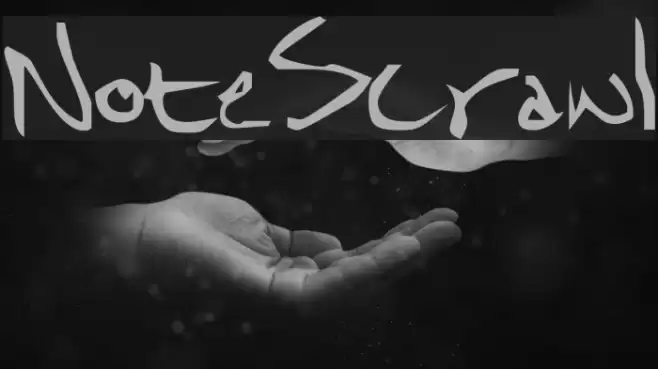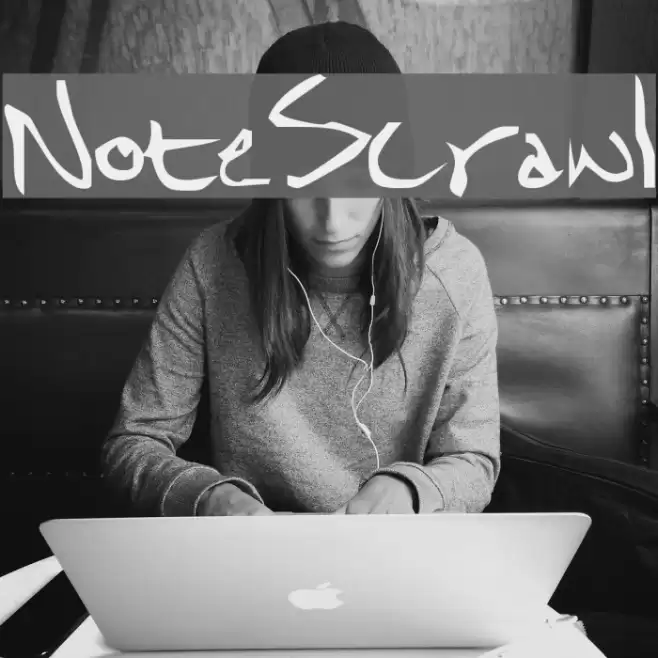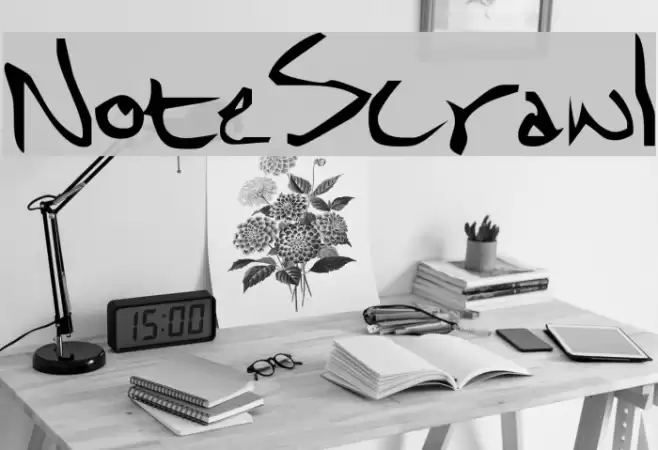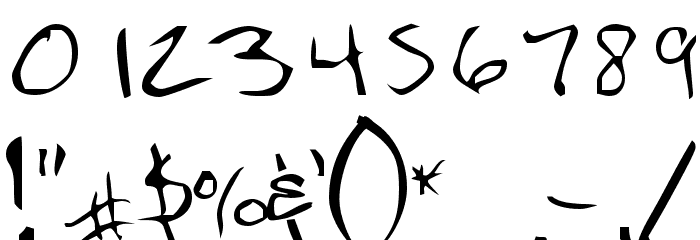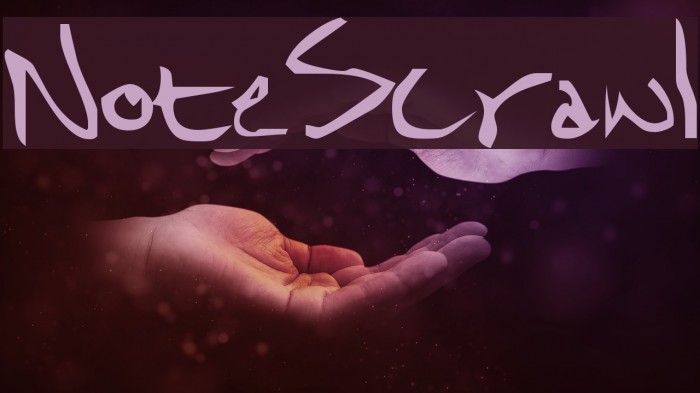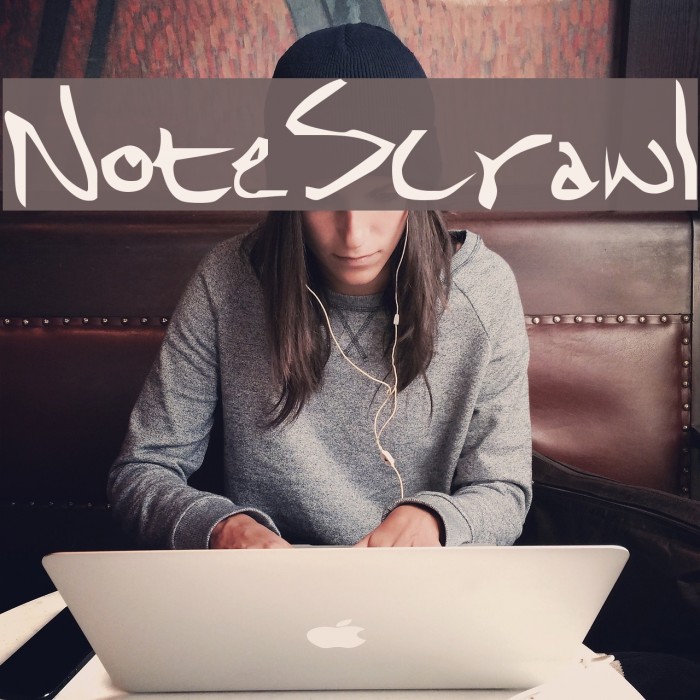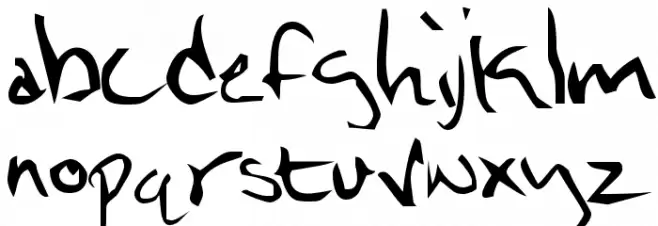
NoteScrawl Font
NoteScrawl Description
This font exudes a casual, handwritten style that mimics the natural flow of handwriting with a slightly playful and informal tone. The letters are unevenly spaced, adding to the authentic handwritten feel. The strokes vary in thickness, providing a dynamic and lively appearance. The uppercase letters are bold and prominent, while the lowercase letters maintain a consistent flow, contributing to its legibility. Numbers and special characters are crafted with the same informal style, making them blend seamlessly with the alphabetic characters. This font is perfect for projects that require a personal touch or a relaxed, approachable aesthetic.
A casual, handwritten font with a playful and informal style from Quirky fonts.
- Proposed Projects: Ideal for greeting cards, personal notes, informal invitations, and creative projects requiring a personal touch.
- Overall Style: Casual, Informal
- Use Case: Logos, Headlines, Informal Text